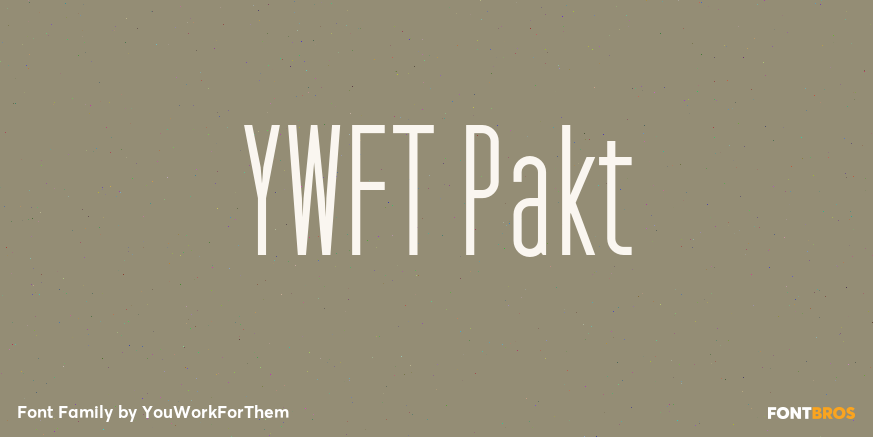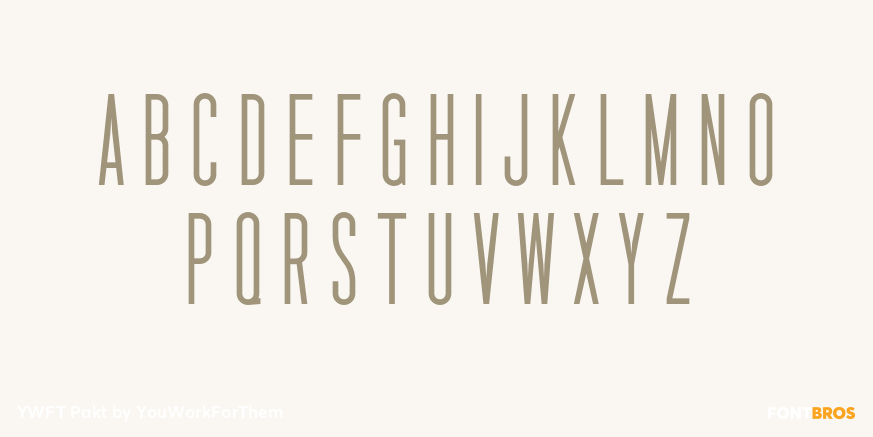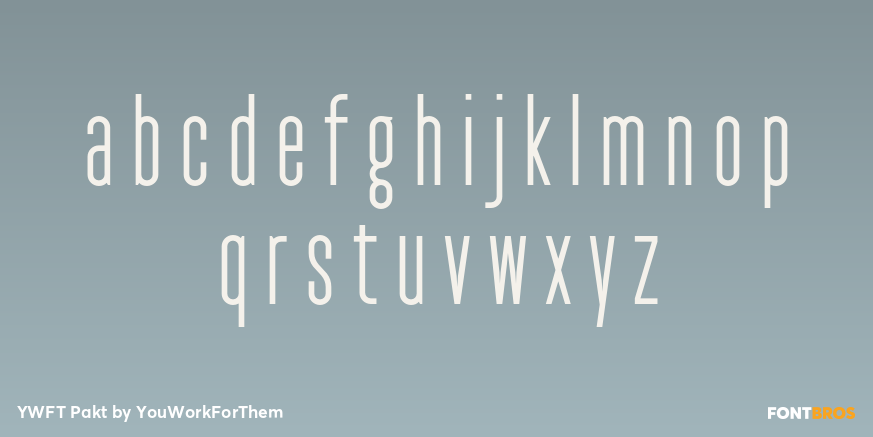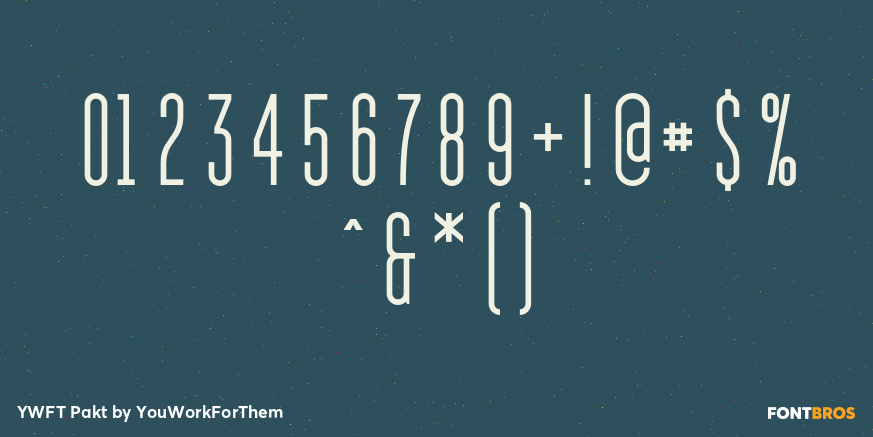
YWFT Pakt
Font Family by YouWorkForThem
Buy NowYWFT Pakt is a condensed, sans-serif typeface consisting of ten different weights. While the design of YWFT Pakt is conservative, serious and authoritative, it still manages to maintain that fresh feeling that more venerable names just don't have. Great attention to detail means it works well not only for headlines, but also for body content in magazines, presentations and books. When you're looking for a font with style, impact and power, look no further than this beautiful type family, which works very well for projects within the corporate, fashion and advertising sectors. YWFT Pakt was converted to Opentype format in 2010. Designed exclusively by Michael Cina and YouWorkForThem.